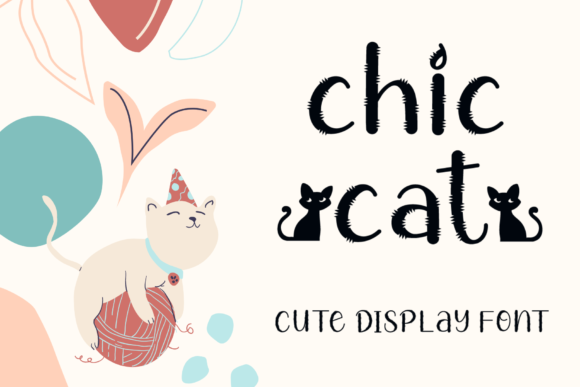
In a world of ordinary fonts, Chic Cat emerges as a beacon of creativity, a whimsical typeface that dances across your designs with the grace of a feline. Its playful curves and charming details are sure to capture the hearts of young and old alike, making it the ideal choice for any project that seeks to inject a touch of magic and charm.
This decorative font is not merely a collection of letters; it's an invitation to embark on a whimsical journey, where each character comes alive with its own distinct personality. The flowing lines and playful shapes of Chic Cat create a visual symphony that will add a touch of whimsy and delight to any project.
Crafted with the utmost care and attention to detail, Chic Cat is a font that will leave an unforgettable impression on your audience. Its unique letterforms and eye-catching details are sure to make your designs stand out from the crowd. Whether you're creating invitations, greeting cards, logos, or social media posts, Chic Cat will elevate your designs to new heights of creativity.
With Chic Cat, you have the power to transform your words into works of art. Its elegant curves and playful shapes will add a touch of charm and sophistication to your designs, captivating your audience from the very first glance. So, embrace the whimsical world of Chic Cat and let your creativity soar to new heights. The possibilities are endless.